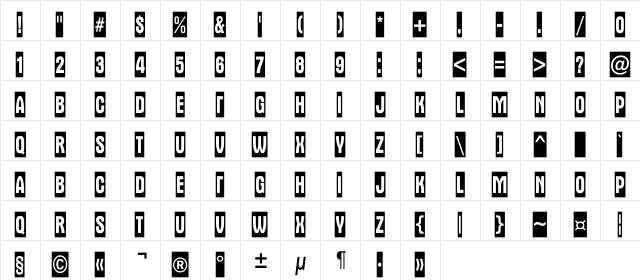
a_AlternaTitulNrCm Regular
Design Context for a_AlternaTitulNrCm Typeface
a_AlternaTitulNrCm takes a measured approach to typography — its balanced proportions and neutral character make it a reliable workhorse for both digital and print work.